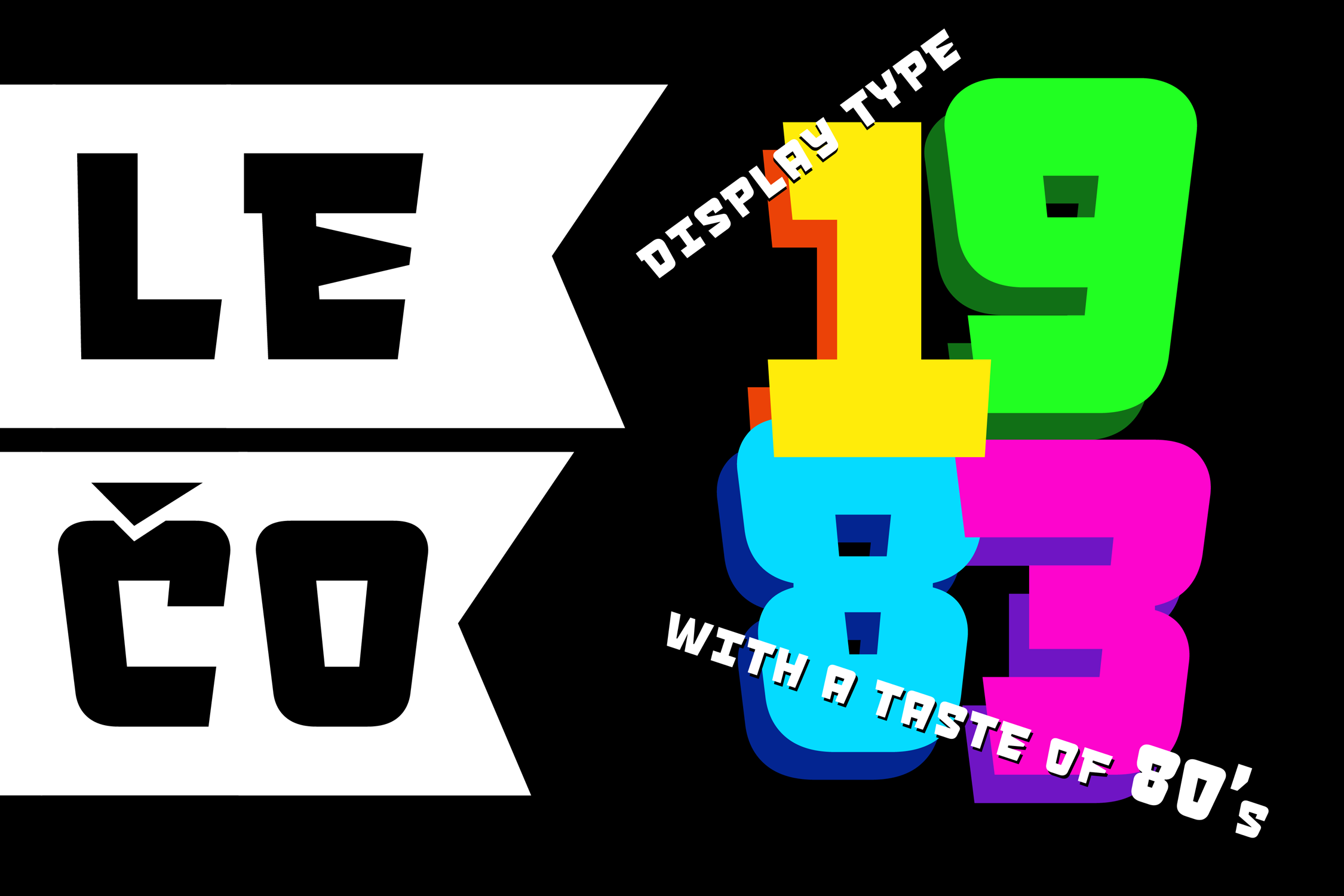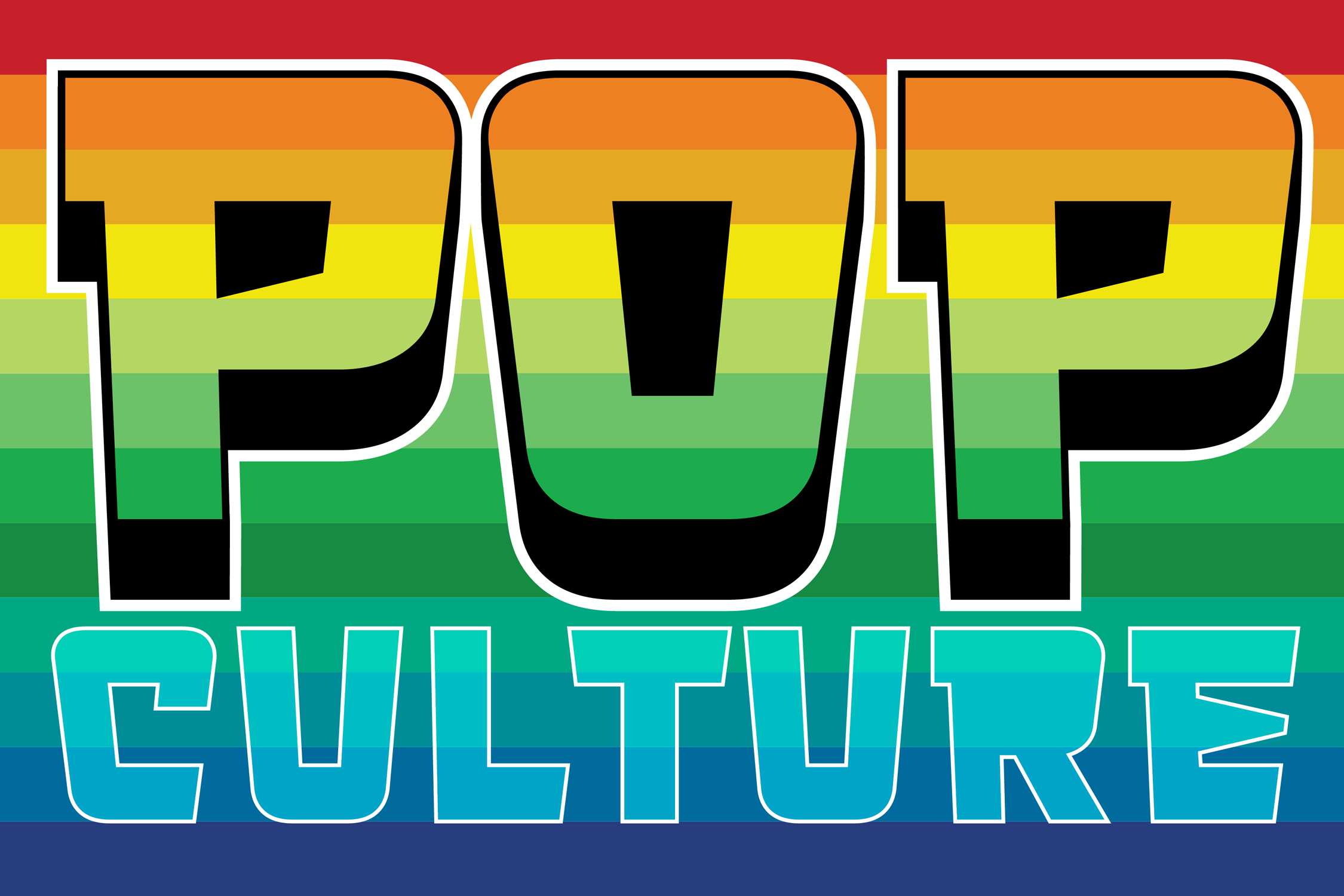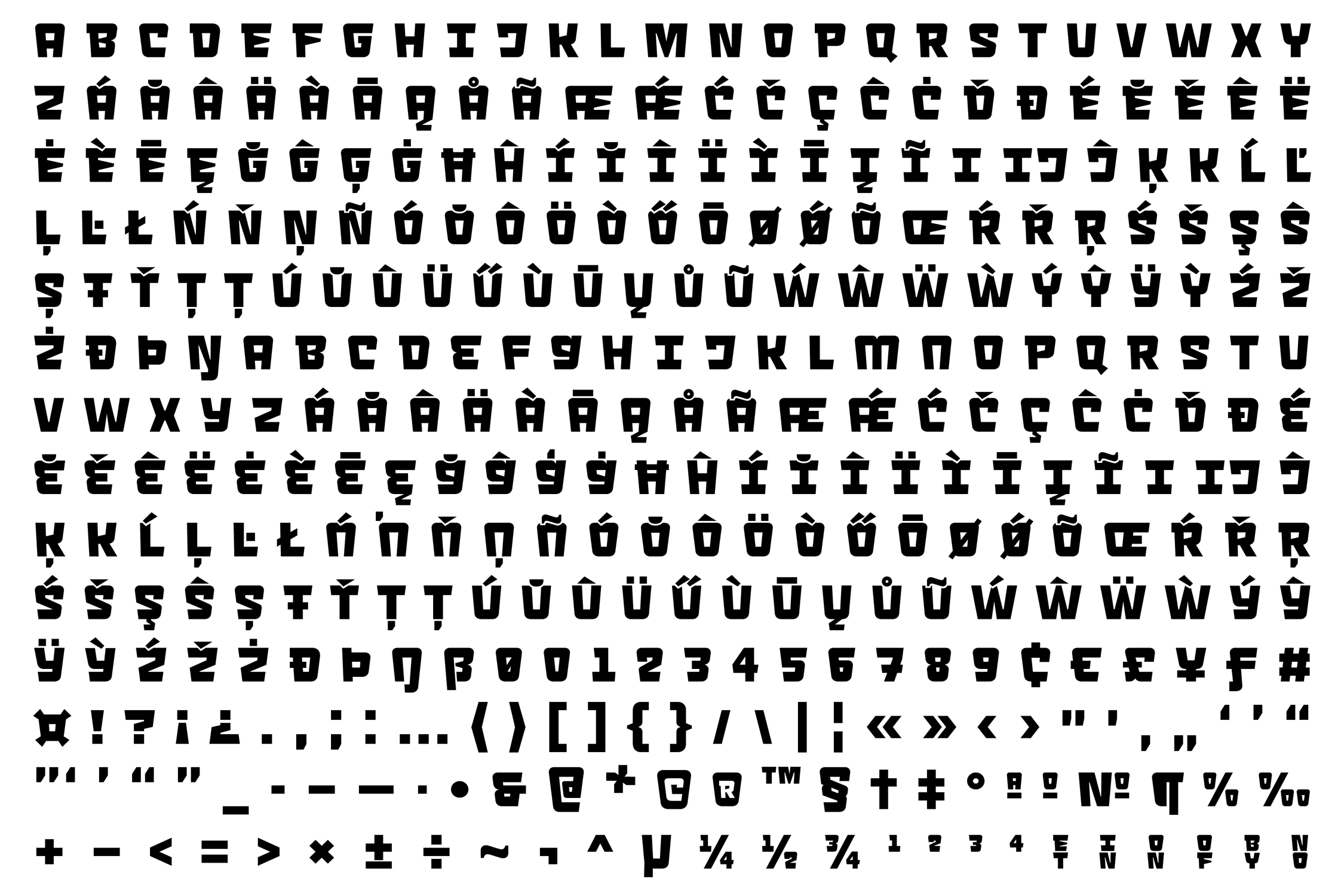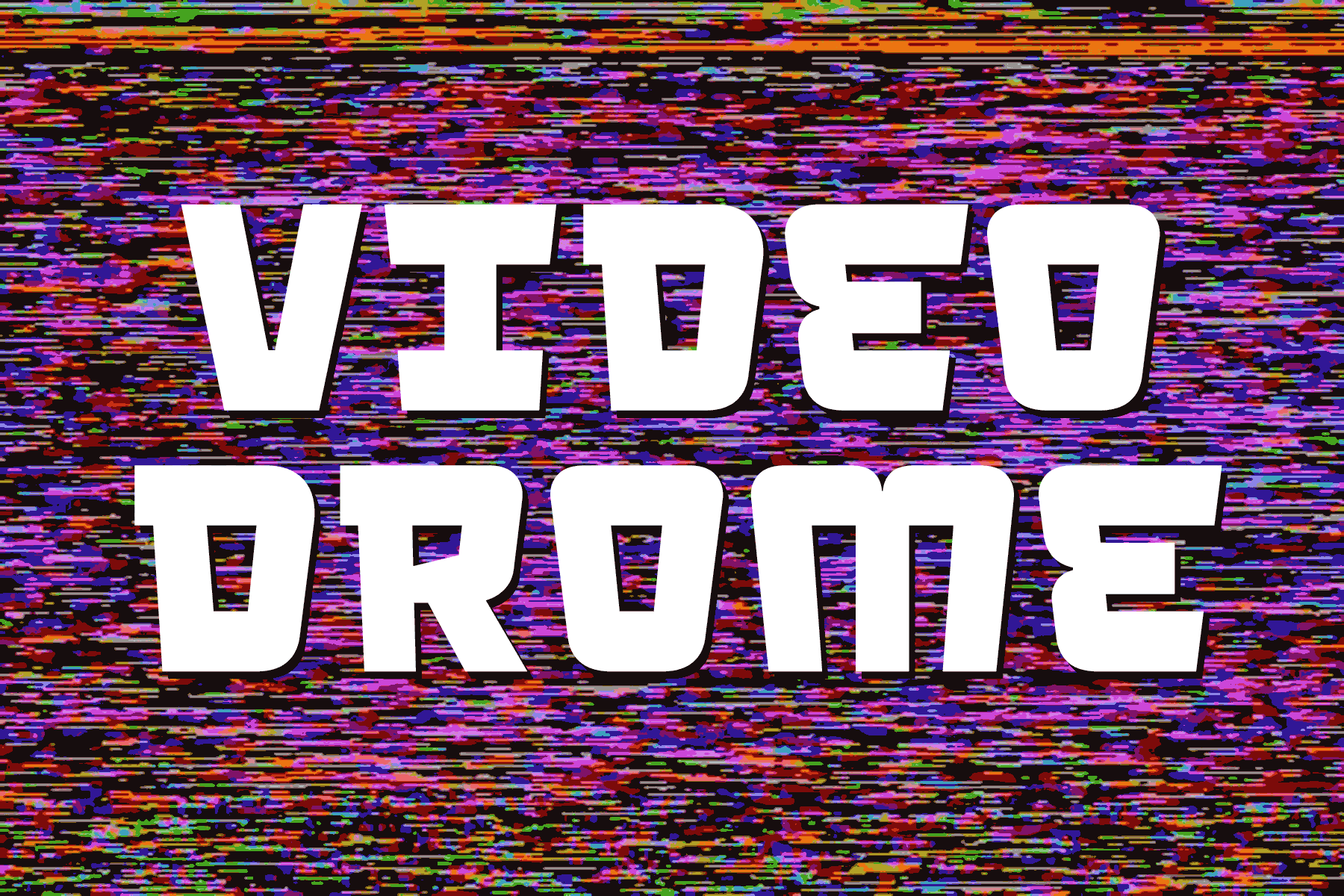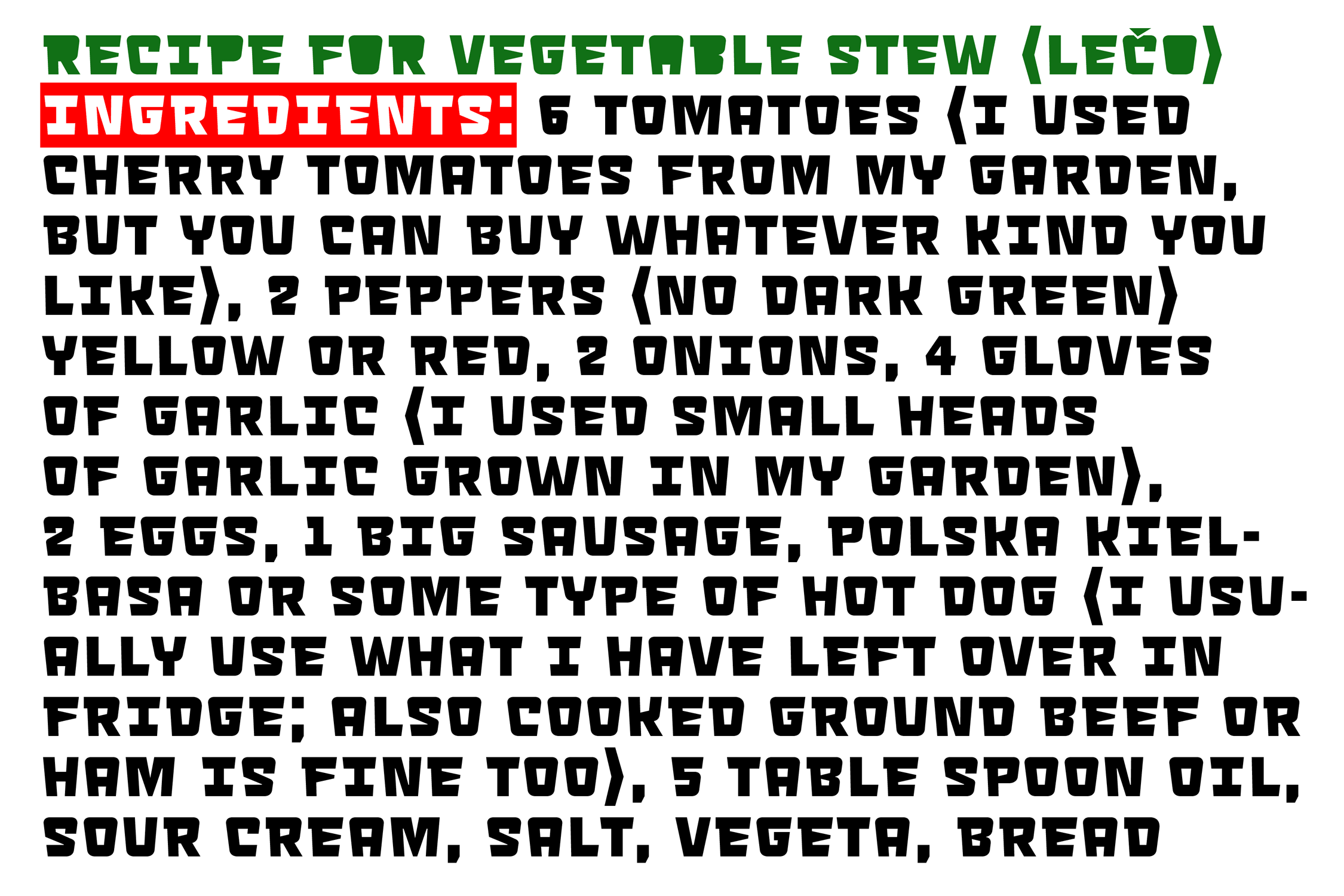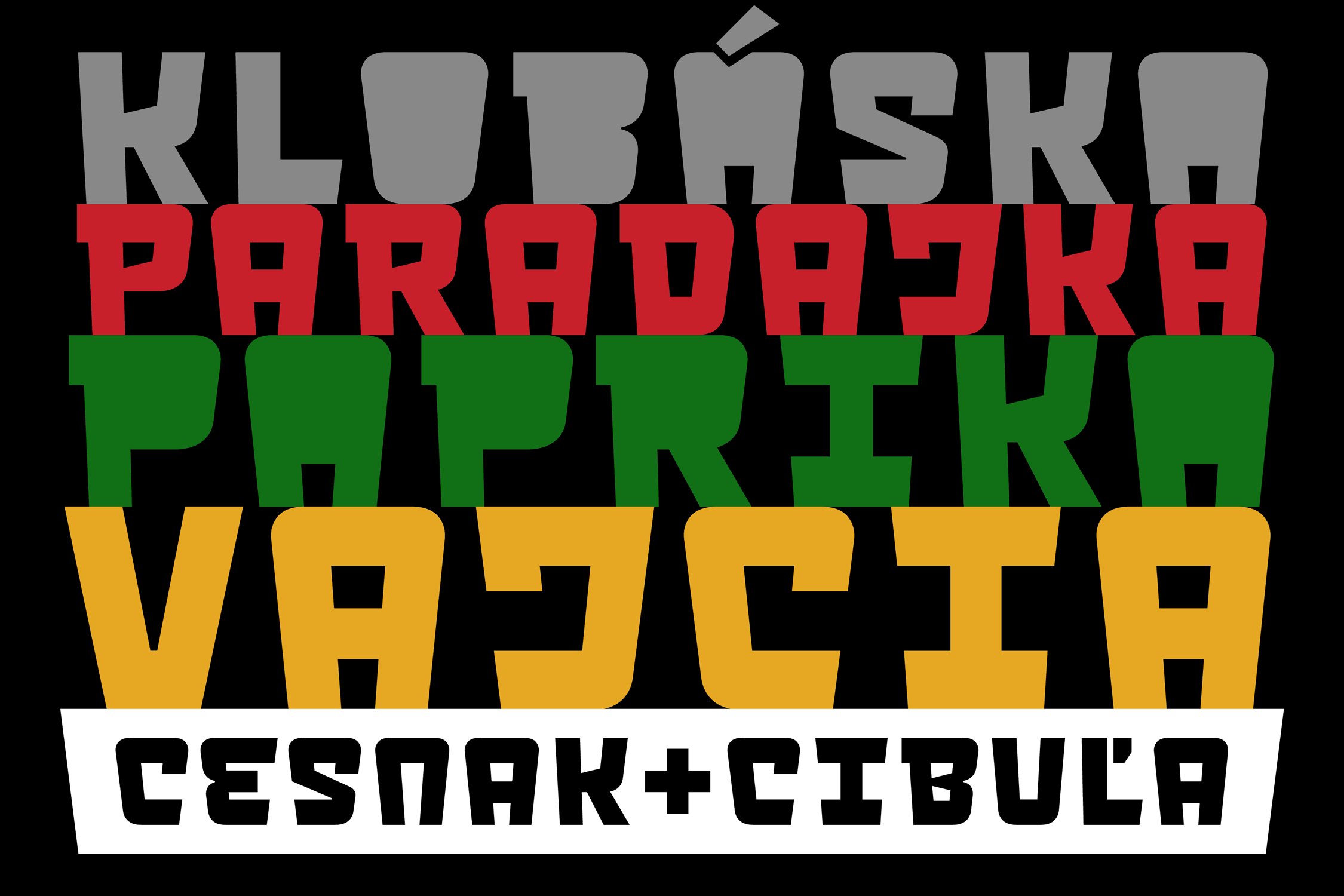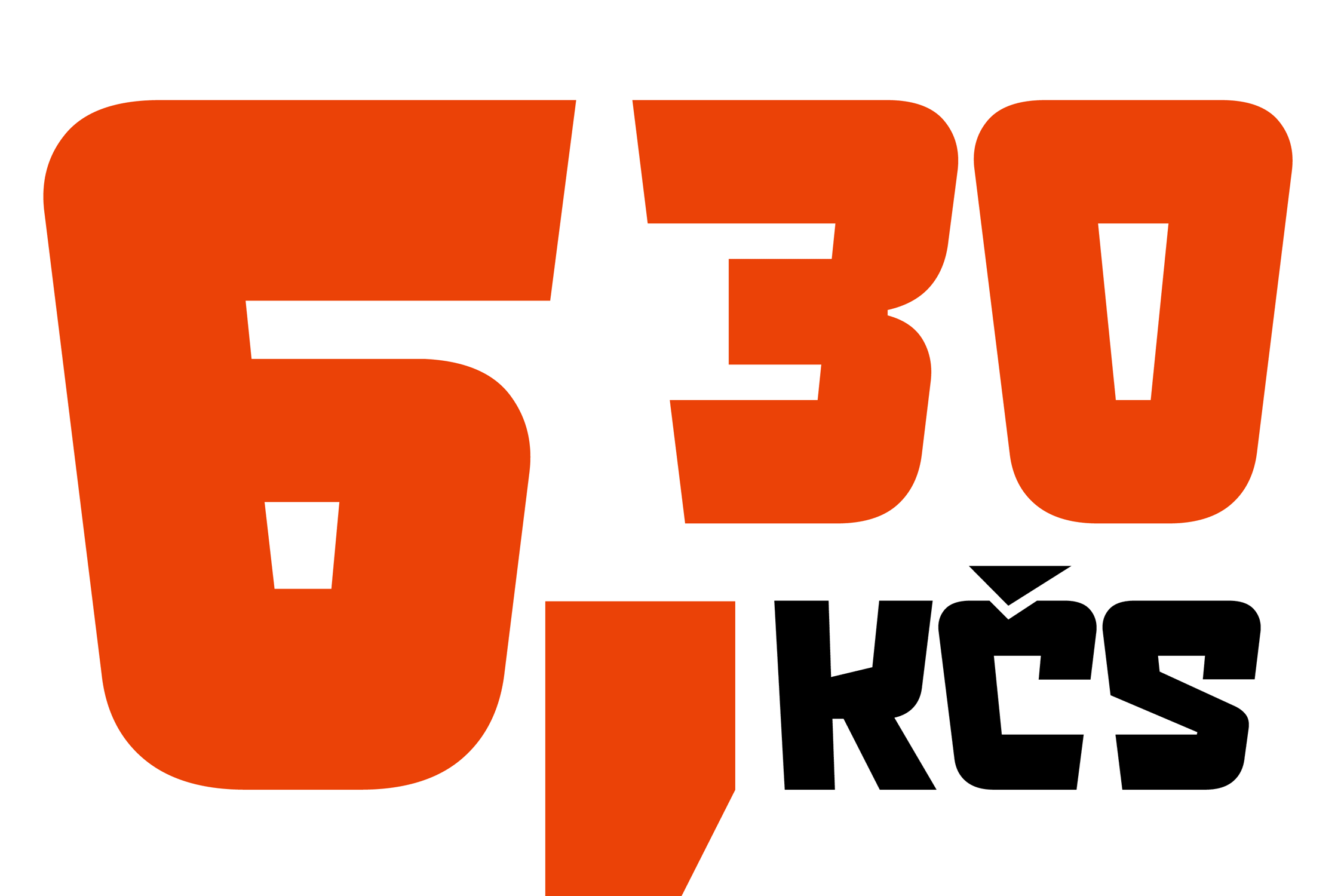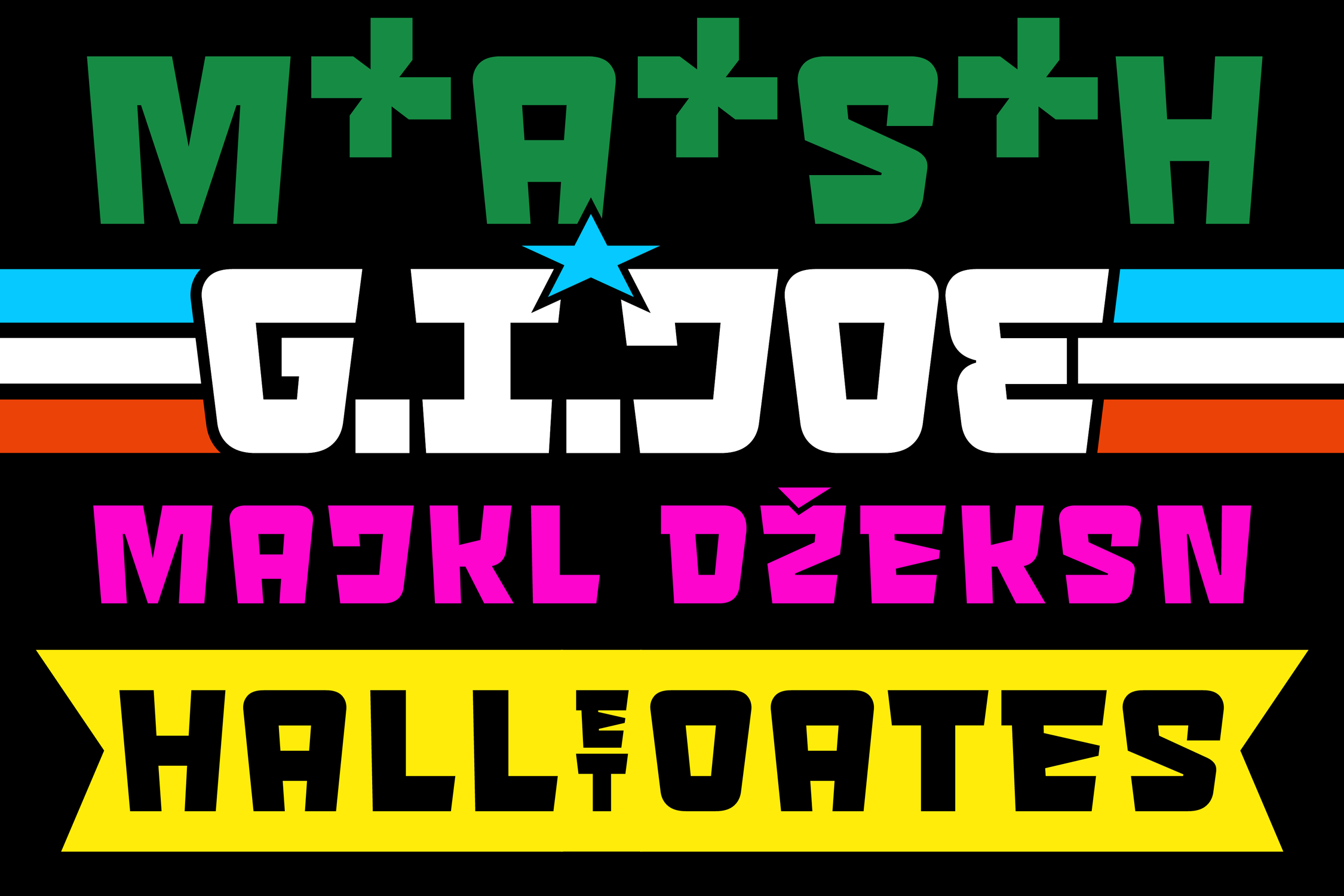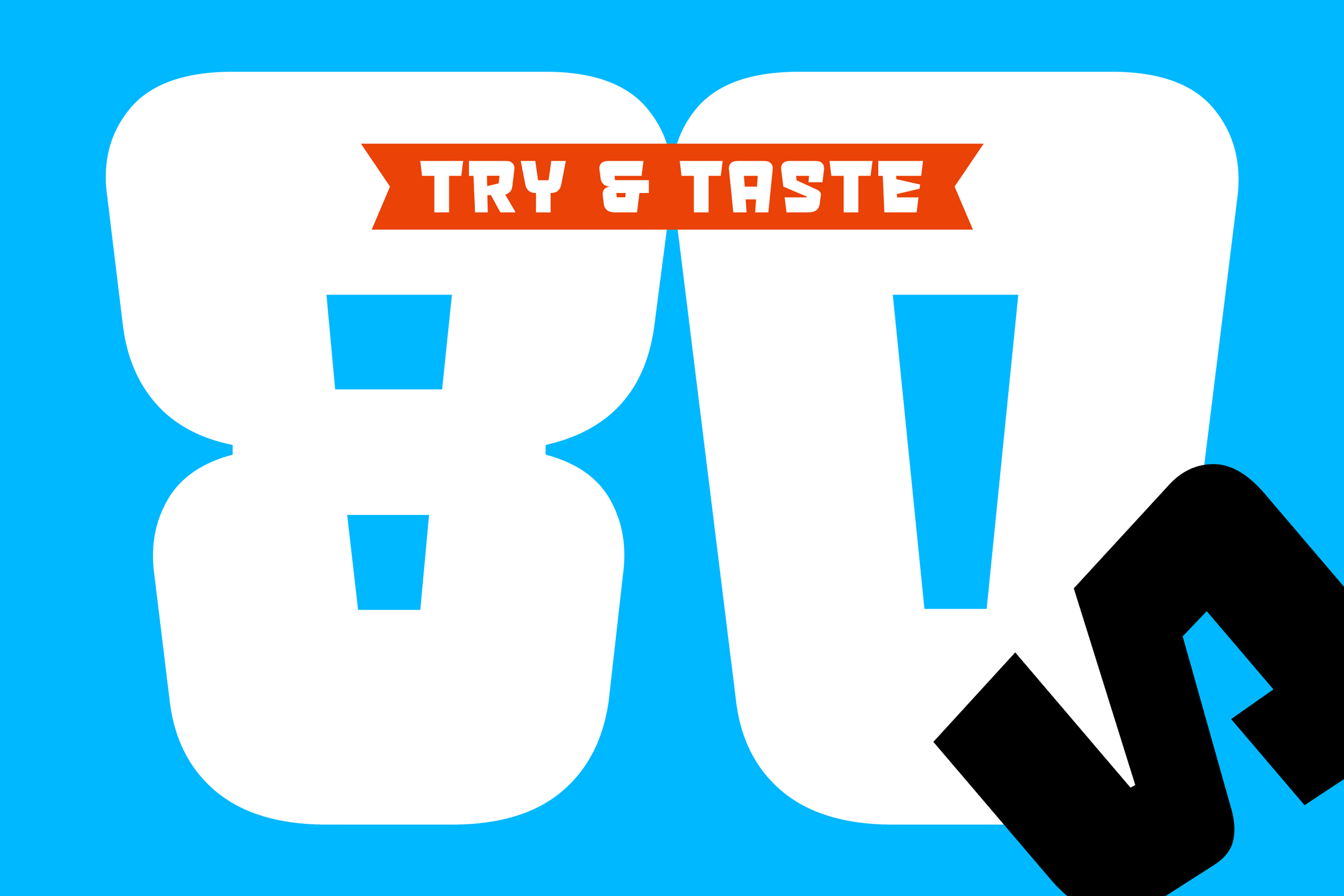
LECO 1983
A headline display OpenType typeface with its three styles. The inspiration for creating this font came from the label on a 1983 bottle of Lečo (bottled stew). The characteristic feature of this font is an embedded diacritic. The monolinear character of drawings is dominant. This font is drawn as capital letter type for both: upper case and lower case letters. It contains alternatives of some signs (e, f, g, m, n, y...)  but it consists several interesting alternatives (ligatures) of pairs as (in, on, of, by) as well. This font is best used on strong posters or as a headline display typeface.